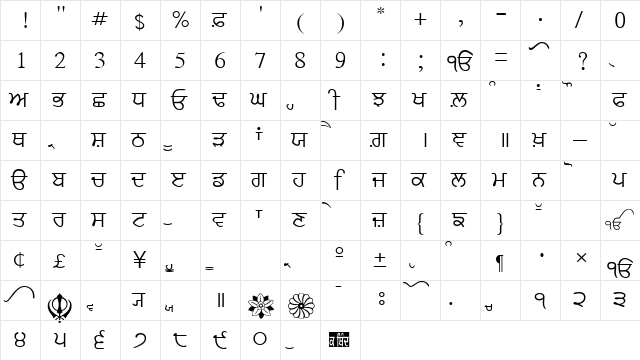
AnmolLipi Regular
Design Context for AnmolLipi Typeface
AnmolLipi takes a measured approach to typography — its balanced proportions and neutral character make it a reliable workhorse for both digital and print work.